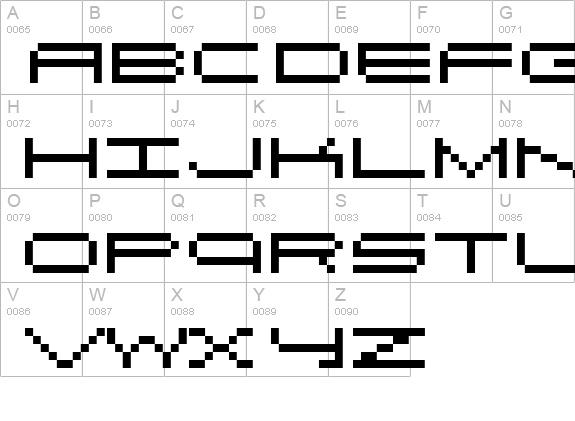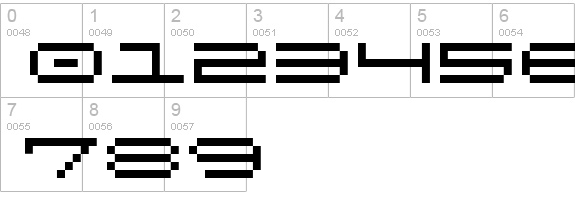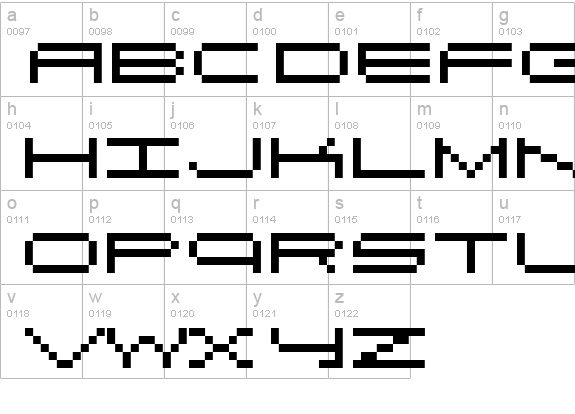
Exceed Font Details
Introducing Exceed font, a striking and modern typeface that is sure to make a bold statement in any design project. With its clean lines and sharp angles, Exceed exudes confidence and sophistication. This versatile font is perfect for a wide range of applications, from branding and advertising to web design and print materials. What sets Exceed font apart is not only its sleek design, but also the fact that it is completely free to download. That's right, you can get your hands on this stunning font at no cost at FontsMarket.com. Whether you're a designer looking to add a fresh touch to your creations or a business owner in need of a standout logo, Exceed font is the perfect choice. Don't miss out on this fantastic opportunity to elevate your projects with this exceptional font. Download Exceed font today and let your creativity soar!